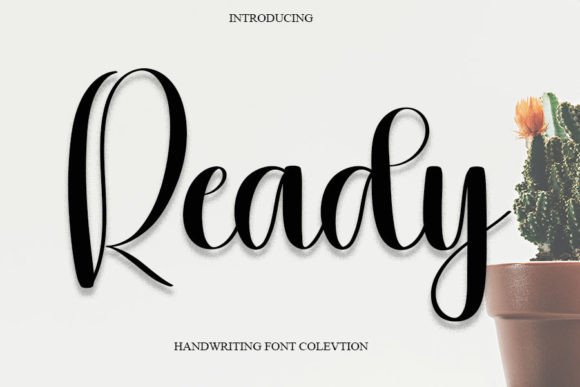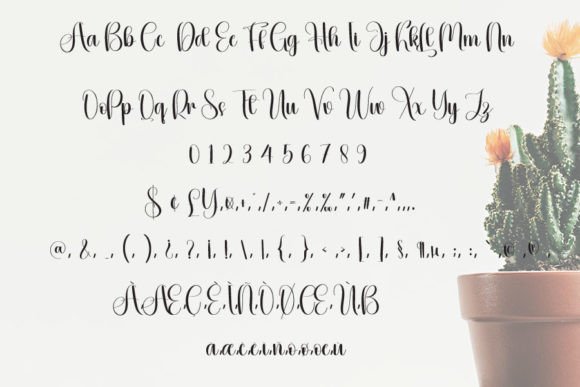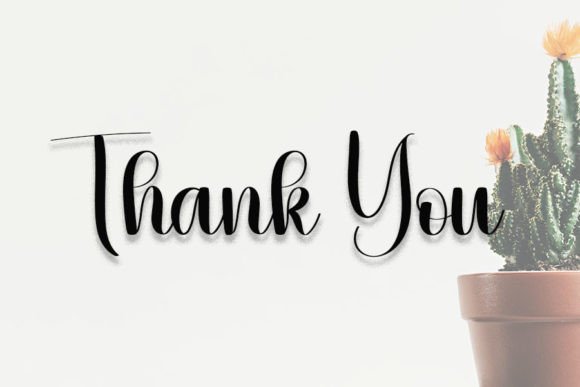
About Ready Font Download
The Ready Font Download is a fun and friendly handwritten script created to bring warmth and joy to design projects. With its smooth handwritten curves and playful energy, it adapts well to invitations, posters, and digital graphics. Because of its casual charm, this font fits both personal crafts and professional branding.
A Playful Script with Versatility
The Ready script font blends natural handwritten strokes with stylish balance. As a result, it feels approachable and vibrant. Furthermore, it adapts to both small stationery and bold display projects, making it reliable for many creative uses.
Handwritten fonts always give personal designs more meaning. The Ready Font is perfect for wedding invitations, thank you notes, birthday cards, and seasonal greetings. Because of its joyful style, every card looks polished and heartfelt. In addition, it helps make personal projects stand out with charm.
Branding and Logo Design with Ready Font
Typography has a major role in shaping a brand’s identity. The Ready handwritten font works beautifully for boutique logos, packaging, and promotional campaigns. Its playful strokes make businesses appear approachable while keeping professionalism. Therefore, it is an ideal option for creative, lifestyle, or craft brands.
Posters, Titles, and Creative Displays
The Ready Font Download also works wonderfully in posters, banners, magazines, and book covers. It maintains clarity in every size while adding friendly handwritten elegance. Consequently, it is a dependable choice for designers who want both readability and charm.
In today’s digital space, fonts must catch attention quickly. The Ready typeface integrates seamlessly into Instagram graphics, YouTube thumbnails, Pinterest posts, and blogs. Because of its lively handwritten rhythm, it makes online content look modern and fun.
Why Designers Choose Ready Typeface
Designers value fonts that balance creativity and practicality. While some handwritten styles look artistic but lose clarity, the Ready handwritten script keeps its charm while staying readable. This makes it dependable for professional projects as well as hobby design. Moreover, its timeless personality ensures it will stay stylish for years.